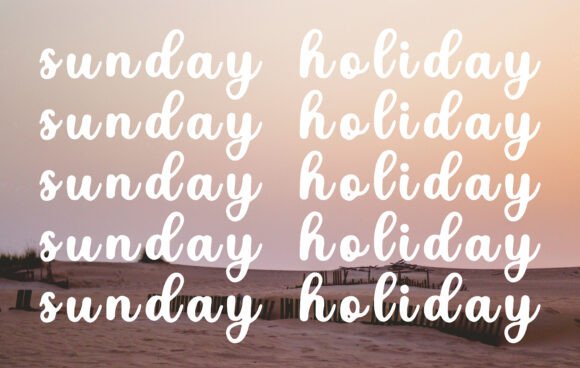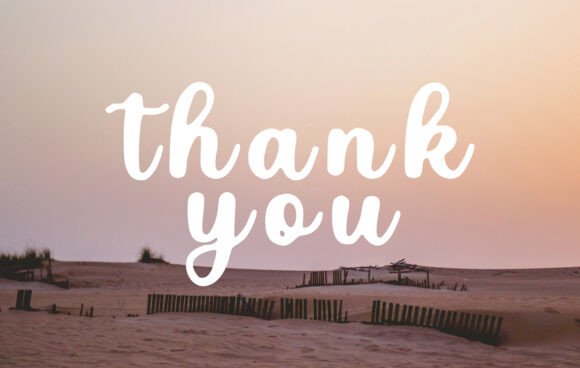
Discover the Charm of Ardilla Font: Elevate Your Designs with a Romantic Touch
In the world of typography, a well-crafted font can make all the difference in bringing your creative visions to life. For designers and crafters seeking a unique and captivating handwritten font, Ardilla Font stands out as an exceptional choice. With its authentic, romantic touch, Ardilla Font is poised to become your new favorite, capable of elevating your projects to unprecedented heights.
The Essence of Ardilla Font
Ardilla Font is an expertly designed, authentic handwritten font that exudes a sense of romance and elegance. Its legibility and versatility make it an ideal selection for a wide range of applications, from titles and body text to various design projects. Whether you’re working on magazine headlines, social media content, branding materials, wedding invitations, or greeting cards, Ardilla Font promises to add a touch of sophistication and charm.
Key Features of Ardilla Font
• Authentic Handwritten Style: Ardilla Font boasts a genuine, handcrafted look that sets it apart from more conventional fonts. Its unique character ensures that your designs stand out with a personal touch.
• Romantic Touch: The font’s romantic essence makes it perfect for projects that require a touch of elegance and warmth. From wedding-related designs to romantic getaways and luxury brands, Ardilla Font adds a suitable and captivating flair.
• High Legibility: Despite its decorative nature, Ardilla Font maintains high legibility, making it suitable for both title and body text. This versatility is invaluable for designers who need a font that can perform well across different types of content.
• Wide Range of Applications: The adaptability of Ardilla Font is one of its strongest assets. It can be used in various design projects, including but not limited to:
• Magazine headlines and articles
• Social media posts and stories
• Branding and logo design
• Greeting cards and personal letters
Why Choose Ardilla Font?
In a sea of digital fonts, Ardilla Font offers a refreshing blend of personality, elegance, and functionality. Here are a few reasons why designers and crafters are gravitating towards this beautiful font:
• Unique Identity: Ardilla Font helps your designs stand out with its distinctive look, ensuring that your work leaves a lasting impression.
• Time-Saving: With its versatility, you can use Ardilla Font across multiple projects, reducing the need to search for different fonts and ensuring consistency in your brand’s visual identity.
• Emotional Connection: The romantic and elegant vibe of Ardilla Font can help create an emotional connection with your audience, making your designs more impactful and memorable.
Tips for Using Ardilla Font Effectively
To maximize the potential of Ardilla Font, consider the following tips:
• Mix and Match: Don’t be afraid to experiment with different sizes, colors, and styles to create visual hierarchy and add depth to your designs.
• Pair with Simplicity: Ardilla Font’s intricate details can shine when paired with simpler design elements. Balance is key to creating visually appealing compositions.
• Consider the Context: Ensure that the font aligns with the project’s tone and audience. Ardilla Font’s romantic touch makes it suitable for projects that aim to evoke warmth and elegance.
Ardilla Font is more than just a typeface; it’s a tool for creative expression that brings a unique blend of authenticity, romance, and elegance to your designs. Its versatility, legibility, and captivating aesthetic make it an invaluable asset for designers and crafters looking to elevate their projects. Whether you’re aiming to create stunning magazine headlines, charming wedding invitations, or compelling social media content, Ardilla Font is poised to become your go-to choice for adding that special touch to your creations.
Embrace the charm of Ardilla Font and discover a world of limitless creative possibilities. Let this beautiful handwritten font be the key to unlocking your next design masterpiece.